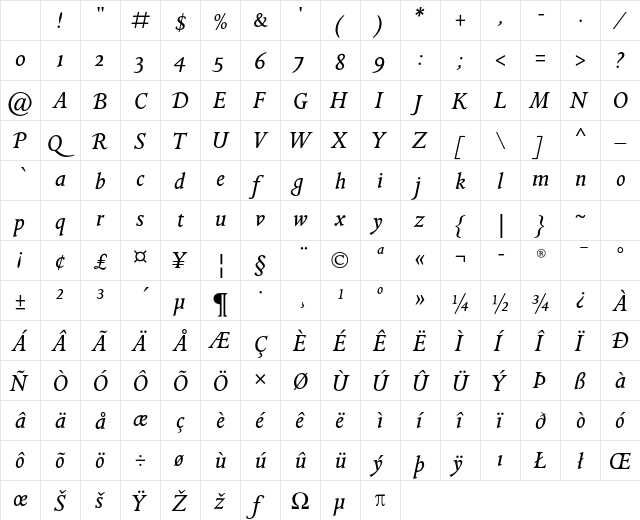
Golden Cockerel ITC Std Italic
Designer: Dave Farey/Richard Dawson
Design Context for Golden Cockerel ITC Std
Golden Cockerel ITC Std is a composed and adaptable typeface that performs quietly and consistently across a wide range of design contexts. The slanted form adds forward momentum and visual energy.